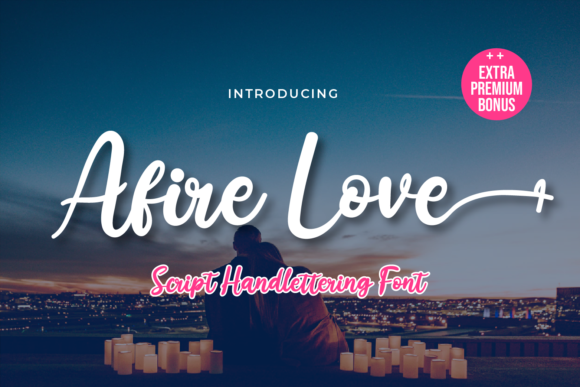
Afire Love Font: Igniting Your Creativity
There’s something magical about the moment when an idea sparks, and your creativity starts to flow. You’re sitting in front of your computer, staring at a blank page, and suddenly, the perfect font appears in your mind. For designers, this moment is what makes it all worthwhile. It’s the thrill of bringing a concept to life, and Afire Love Font is here to help you capture that magic.
Afire Love Font is a stunning handwritten font that adds an elegant touch to any project. Its flowing lines and unique style make it perfect for creating spectacular designs that leave a lasting impression. Whether you’re a seasoned designer or just starting out, this font is a valuable addition to your toolkit. With Afire Love Font, you’ll be able to bring your ideas to life in a way that’s both timeless and distinctive.
Afire Love Font Key Features
- Unique Characteristics: Afire Love Font features a unique blend of handwritten and script styles, with a mix of bold and elegant lines.
Afire Love Font Review
I recently had the chance to work with the Afire Love Font, and I must say it’s a unique and intriguing choice for any design project. Here’s my honest review:
- Uniqueness**: The Afire Love Font has a distinct, hand-painted feel that sets it apart from more traditional fonts. It’s perfect for adding a touch of whimsy and personality to your designs.
- Legibility**: Despite its bold, expressive style, the Afire Love Font is surprisingly easy to read, even at smaller font sizes.
- Emotional Connection**: The font’s emotive, handwritten feel can help evoke strong emotions and create a deeper connection with your audience.
- Limited Use Cases**: The Afire Love Font may not be the best choice for formal or corporate designs, as its casual, handwritten feel may come across as unprofessional.
- Lack of Consistency**: The font’s hand-painted style can sometimes result in inconsistent letterforms and spacing, which may be distracting in certain contexts.
Overall, the Afire Love Font is a bold and expressive choice that can add a unique touch to your designs. While it may not be suitable for every project, it’s a great option for designers looking to create emotional connections with their audience.